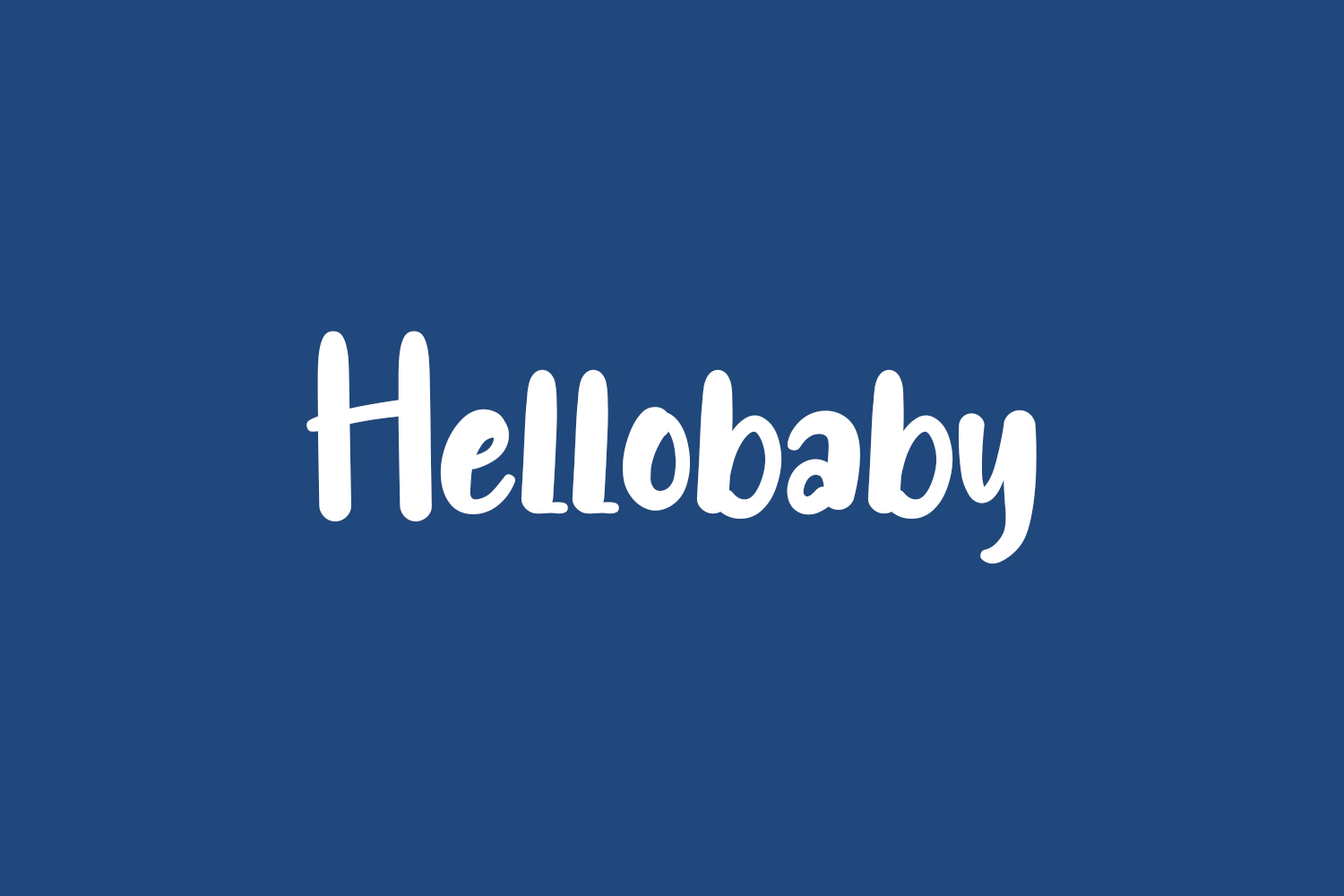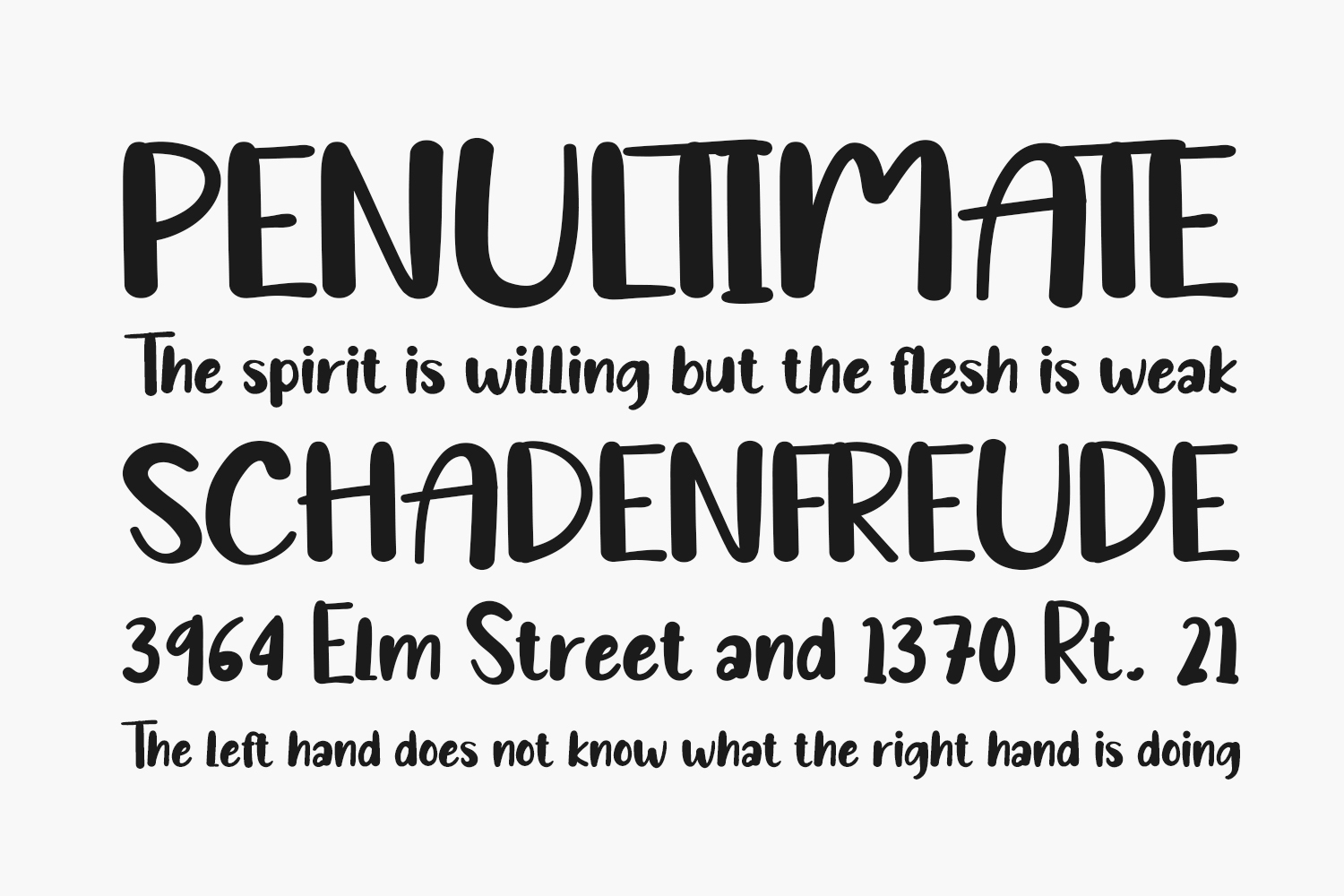
Hellobaby Free Font is a bold and cute script font. Add this chunky lettered font to your designs and notice how it makes them come alive. Hellobaby Free Font was designed by Micro Andi and is free for personal use only. Please purchase the full version for commercial use.